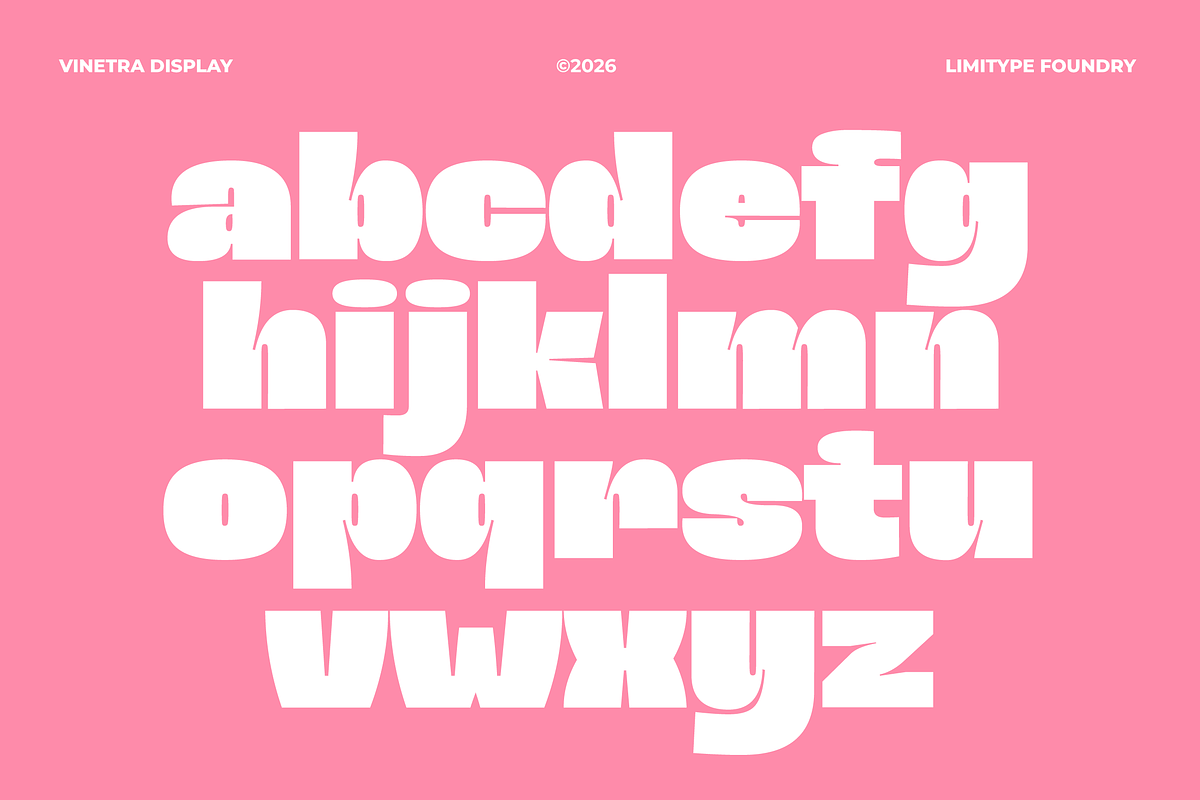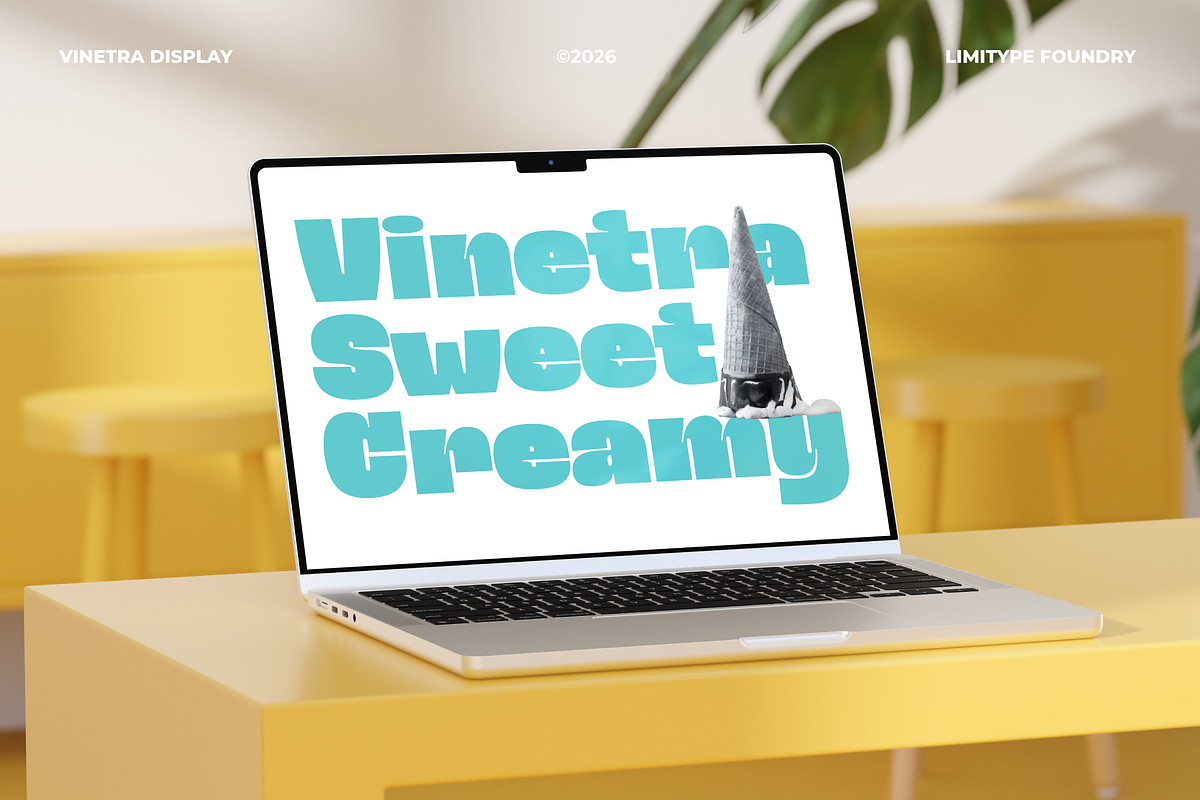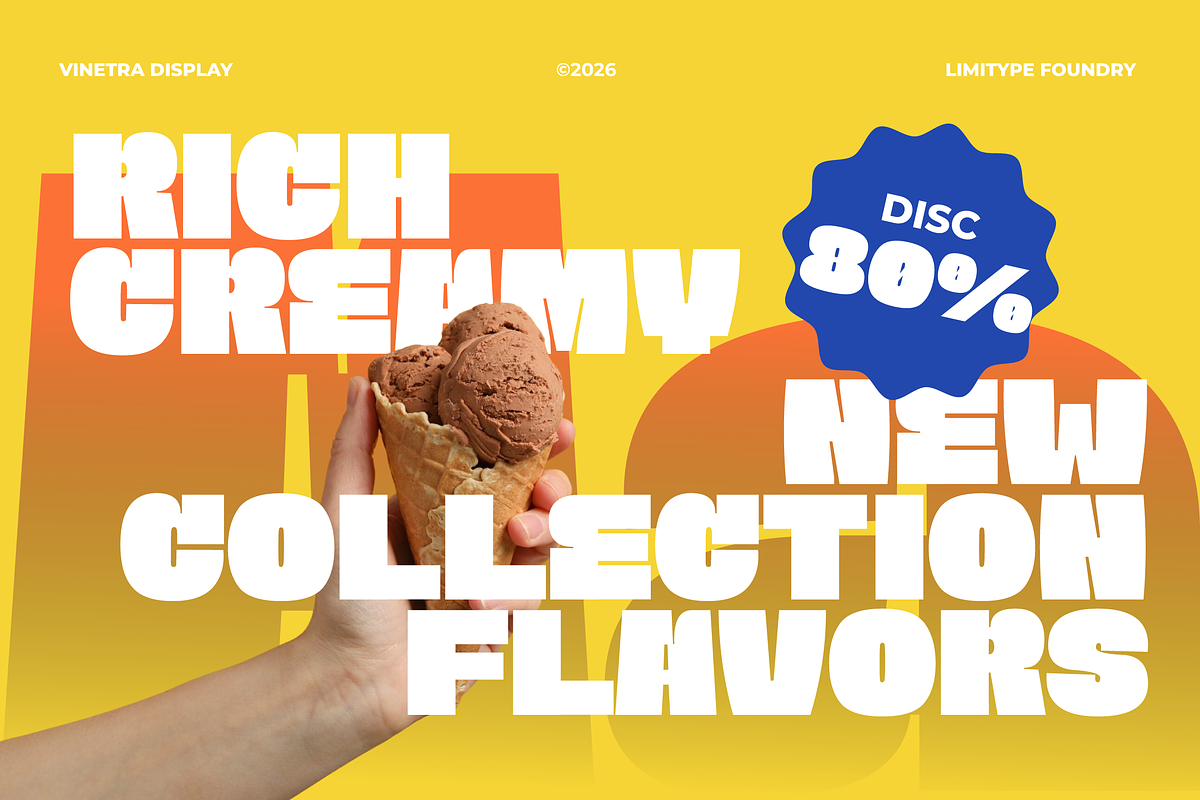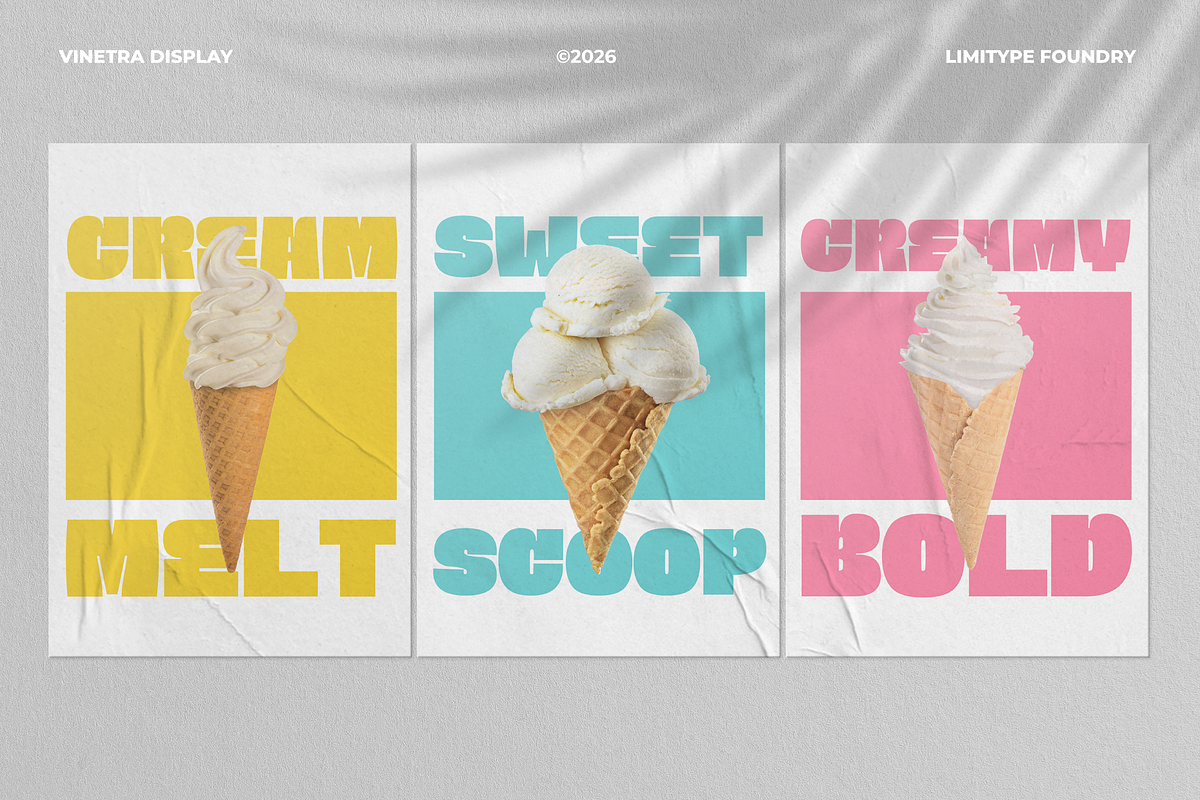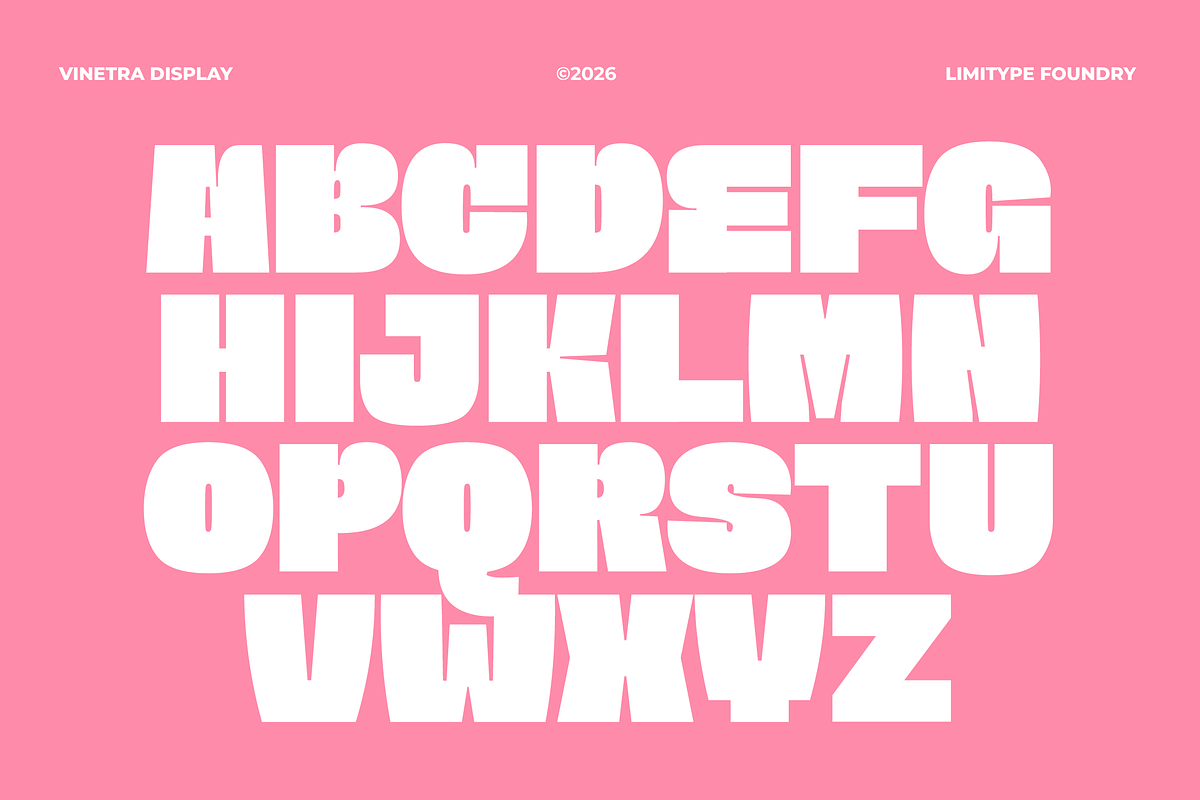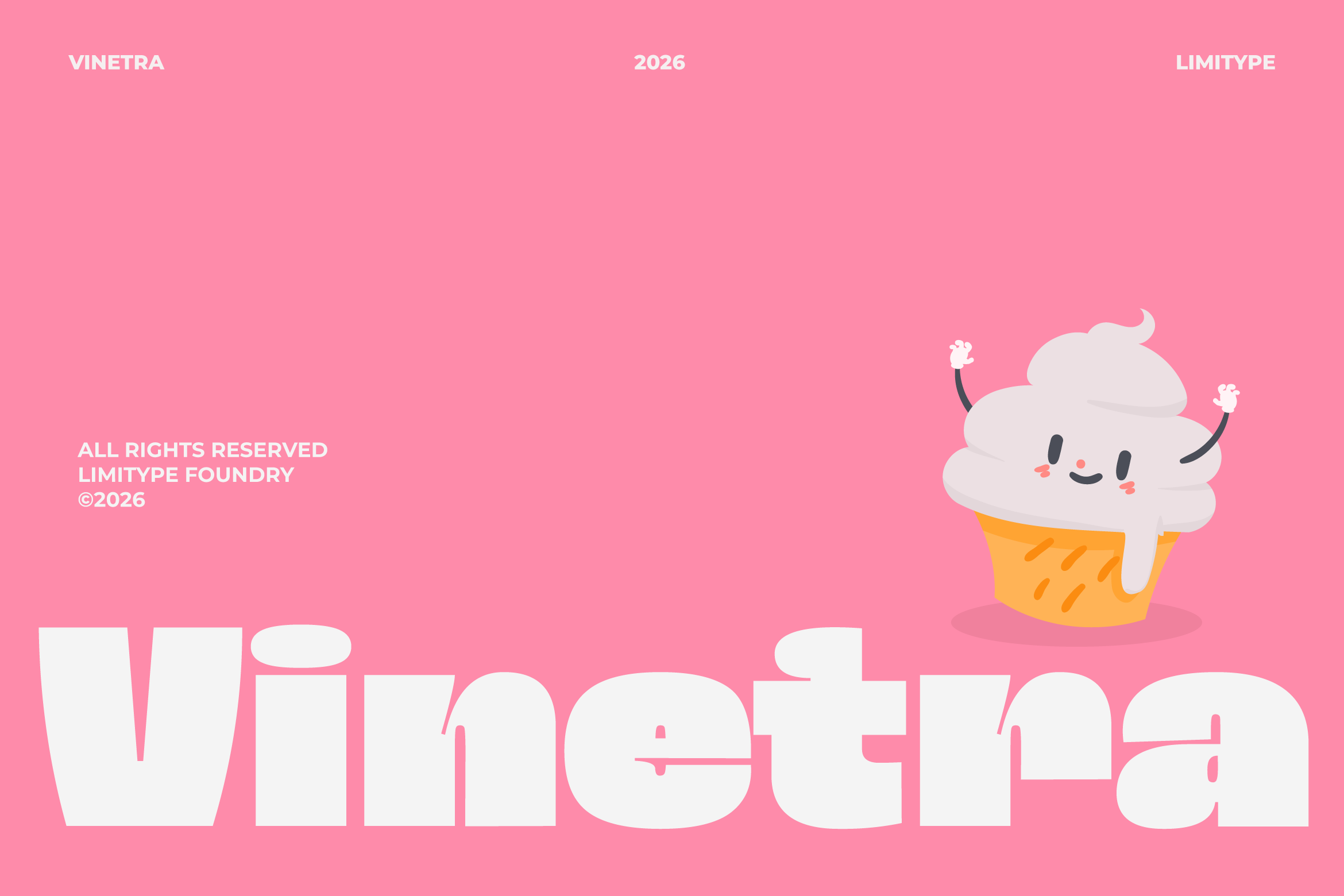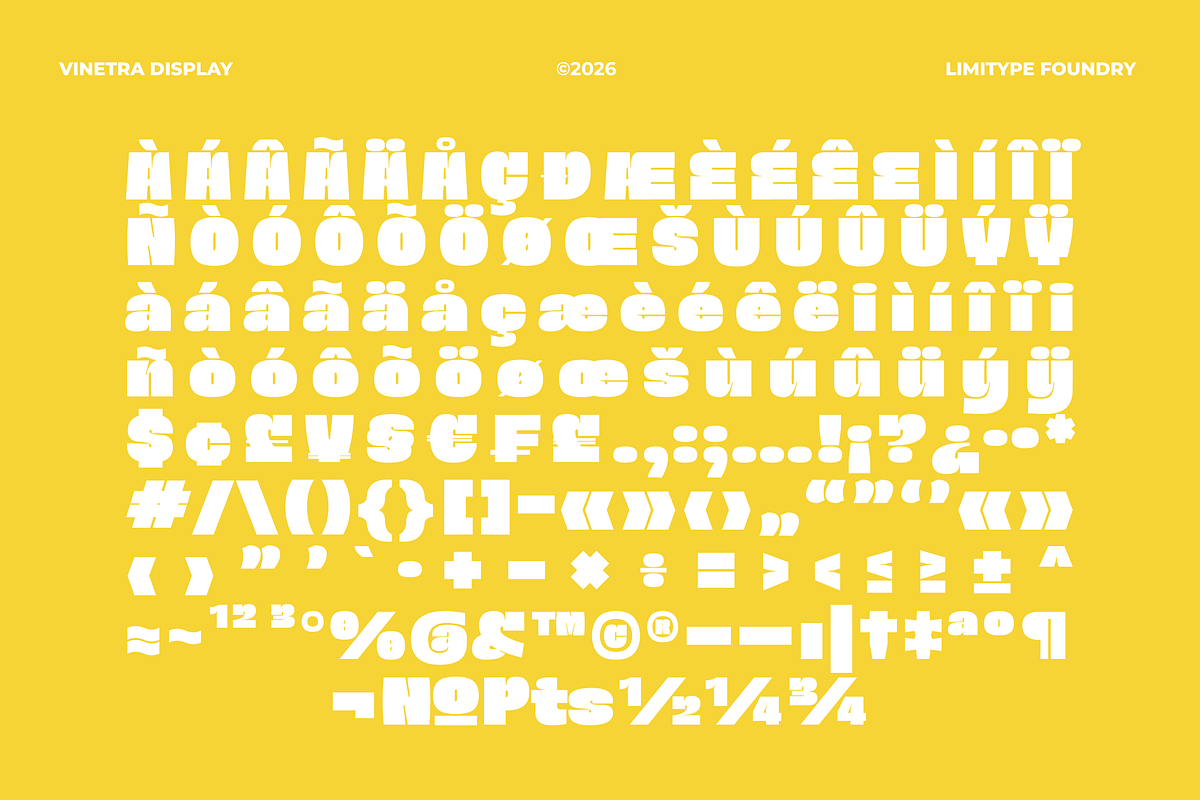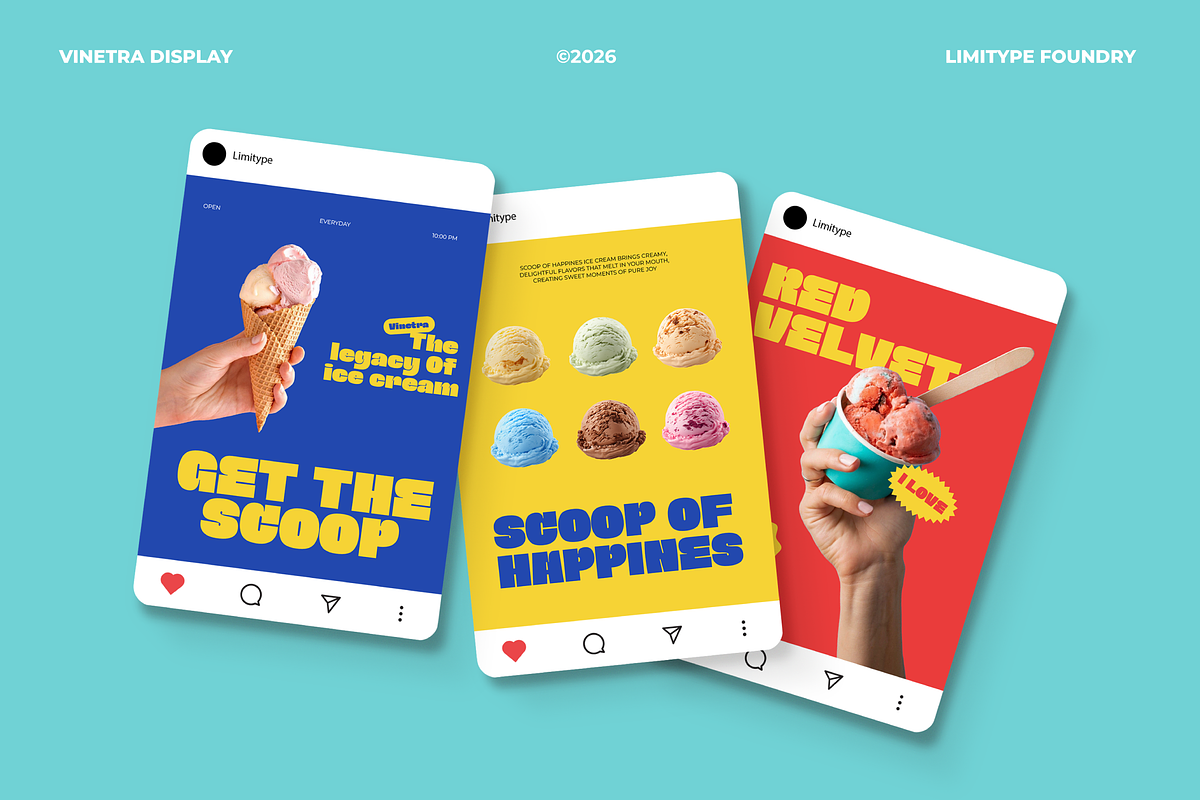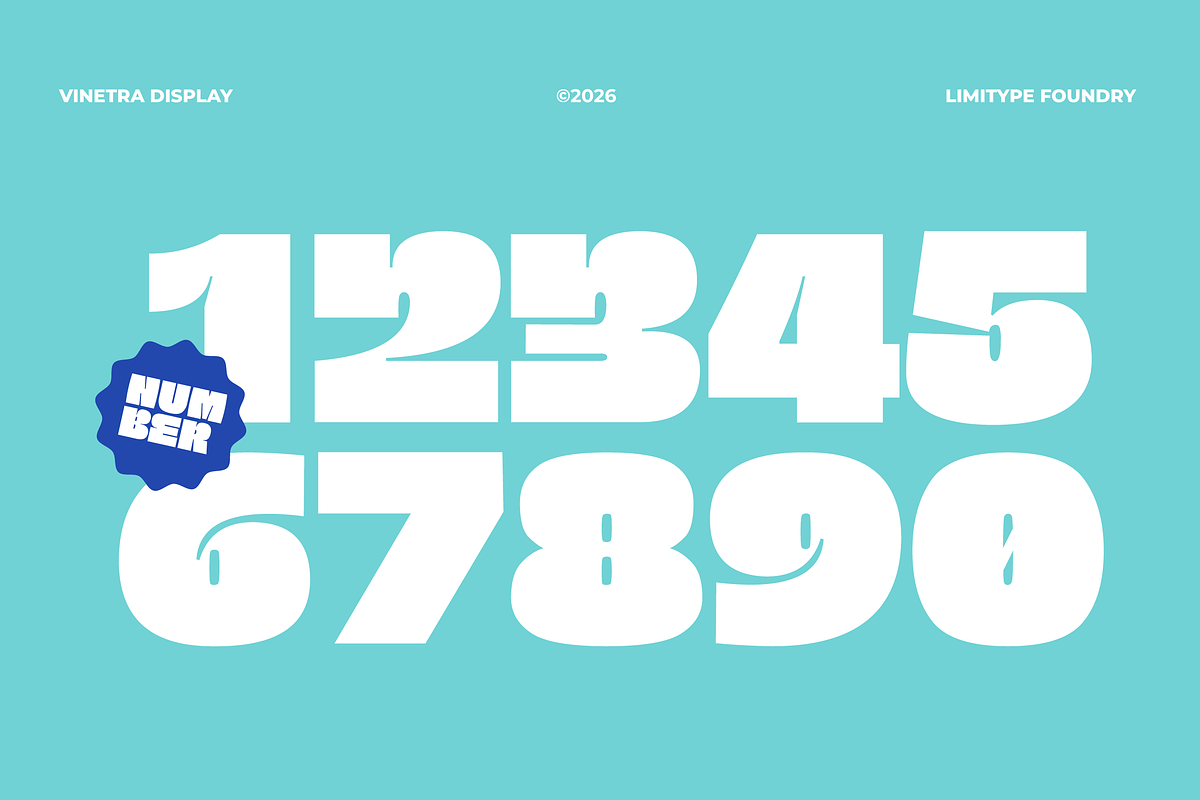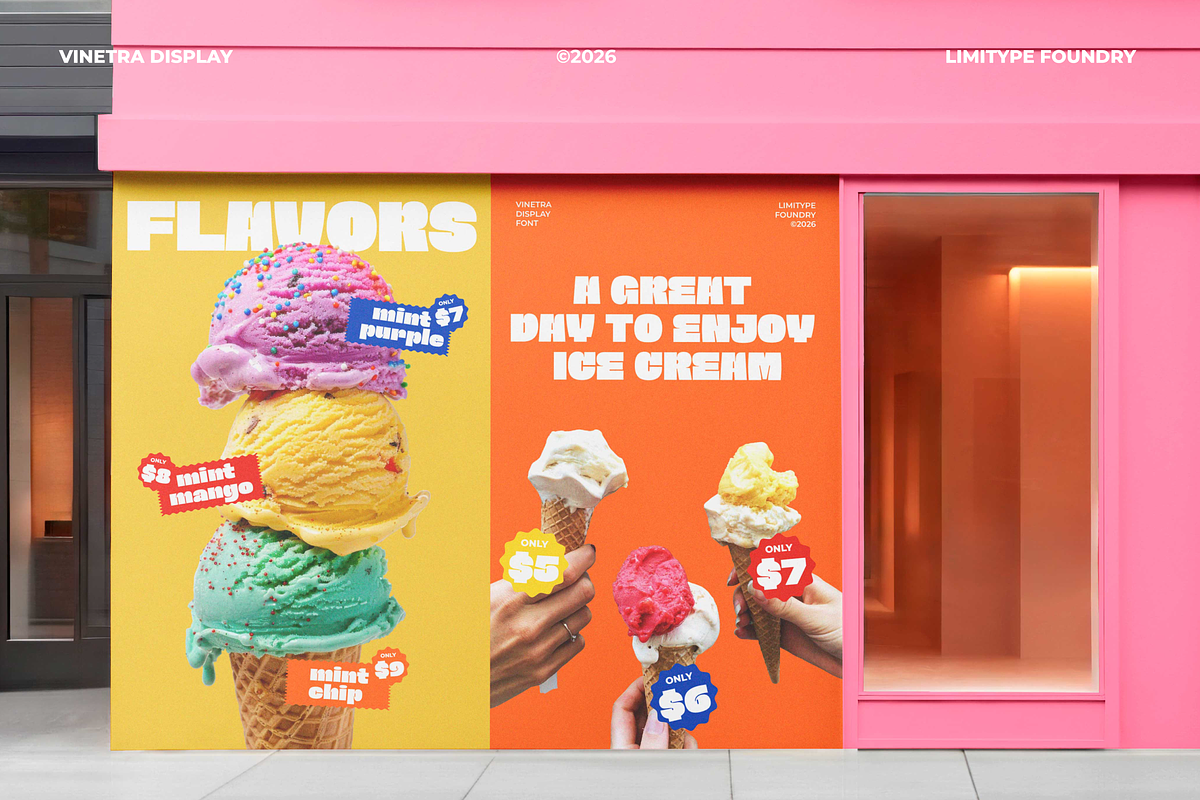
Vinetra - Bold Font
Vinetra is a bold display font with unique shapes and a striking retro modern aesthetic, designed to create a strong visual impact. Its distinctive character makes it highly suitable for branding, logos, posters, headlines, as well as creative visual identities that demand attention and stand out across both digital and print designs.